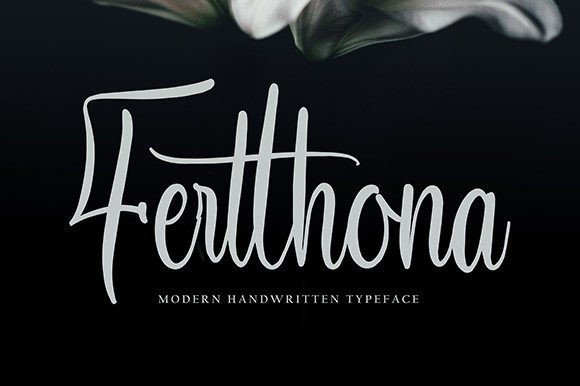
Introduction to Fertthona Font
Fertthona with a new style, this font will be perfect for many different projects ex: quotes, logos, blog headers, posters, banding, letter, invitation, stationery, etc… This font is PUA encoded which means you can access all of the amazing glyphs and ligatures with ease.
👤 Author Pineungtype & Missinklab
Key Features of Fertthona Font
Why Choose Fertthona Font?
Fertthona Font offers exceptional quality and versatility, making it a valuable addition to your design toolkit. Whether you’re creating for personal projects or commercial use, Fertthona Font delivers professional results.